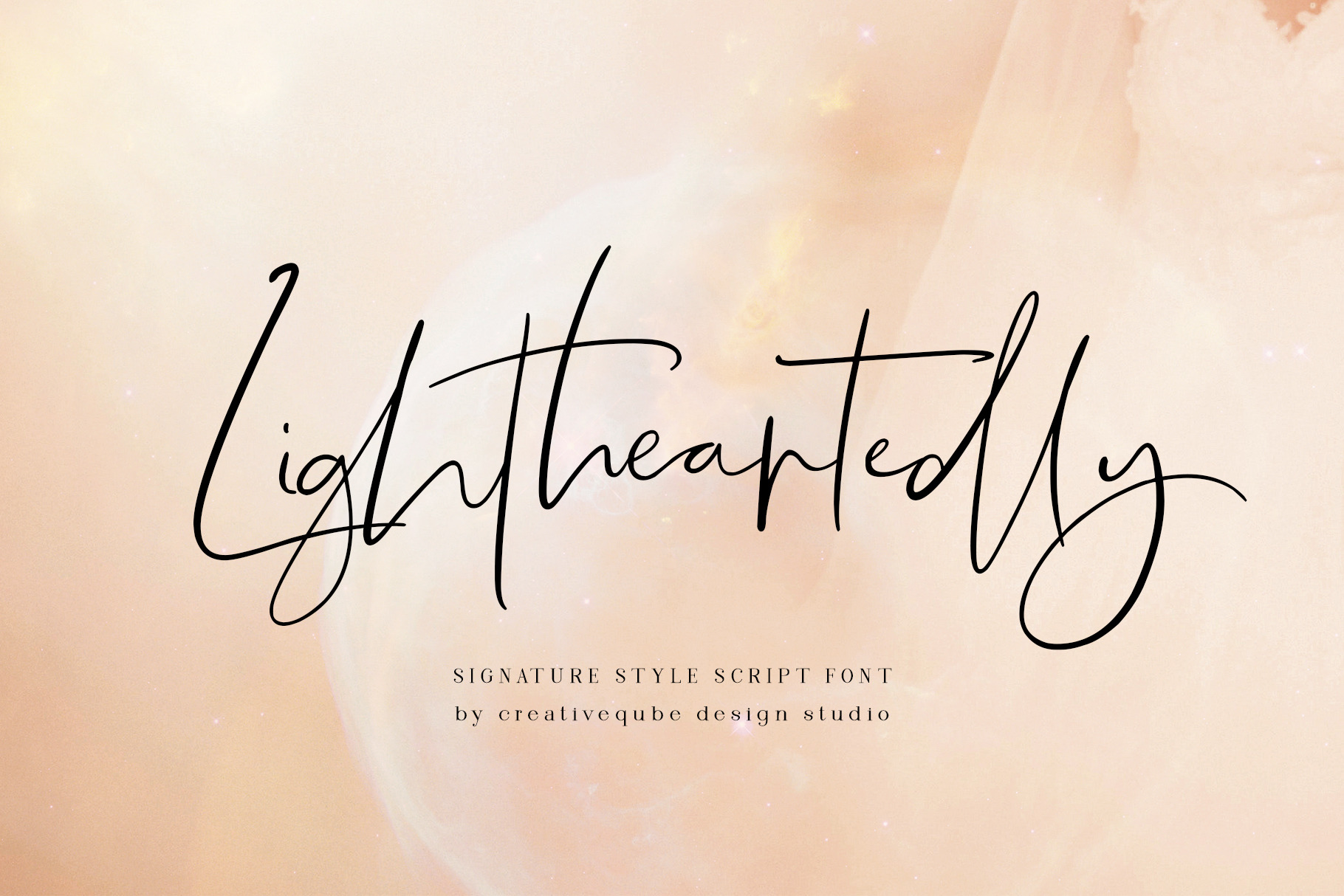
Lightheartedly Signature style font
Introducing a new signature style scrip font - Lightheartedly
This is a classy yet relaxed hand written script, perfect for quotes, invites, weddings, posters, signs, branding, logos, planner stickers, and much more!
Lightheartedly includes a full set of lowercase alternates plus almost 100 double (and triple) ligatures to create that genuine hand written look!